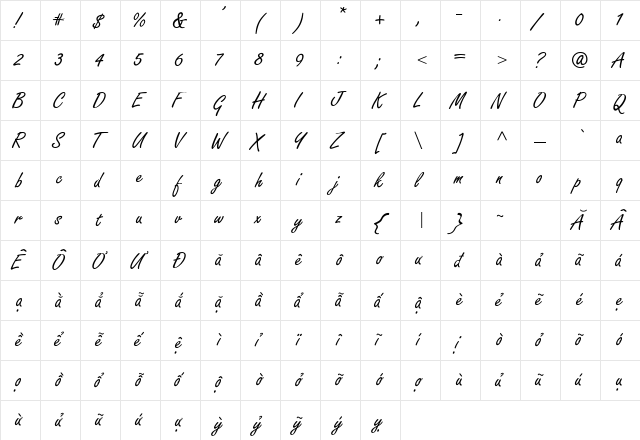
.VnFree Medium
Design Context for .VnFree Typeface
.VnFree is a composed and adaptable typeface that performs quietly and consistently across a wide range of design contexts.